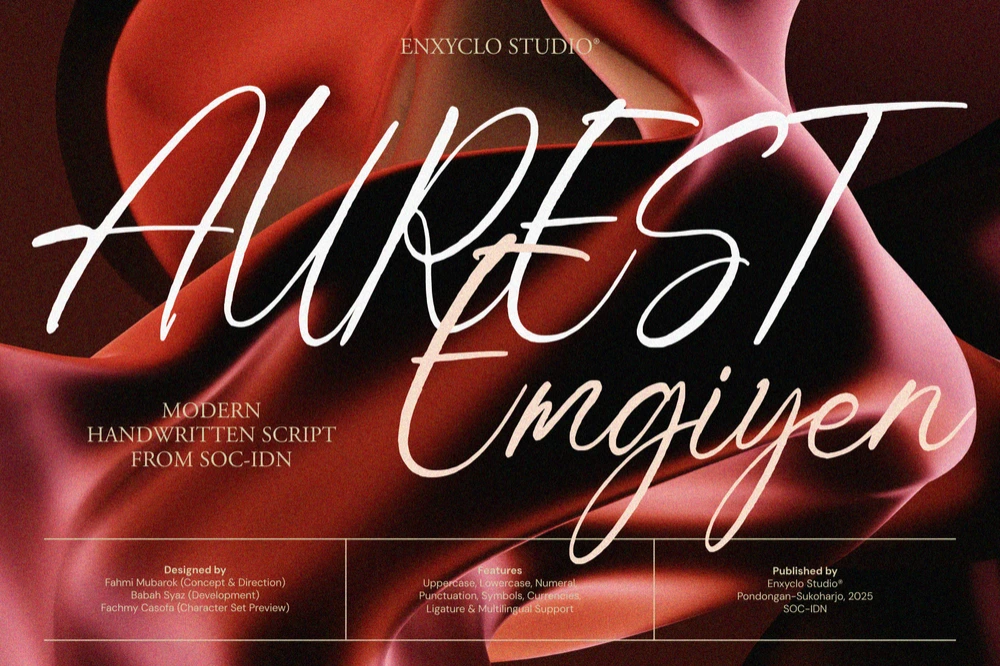
Aurest Emgiyen is a modern luxury script font designed with elegant curves, lavish detailing, and a premium handwritten flow. Crafted to elevate high-end visual identities, this font carries a rich, glamorous aesthetic perfect for brands that demand sophistication and refinement.
Its smooth script strokes and bold, confident presence make Aurest Emgiyen an ideal choice for fashion labels, luxury boutiques, beauty and skincare brands, cosmetics, and premium logo design. The font balances fancy elegance with a clean modern feel, making every word look exclusive, upscale, and irresistibly stylish. Whether used by a creative agency or a fashion-forward brand, Aurest Emgiyen brings a touch of glamour, class, and timeless beauty to any visual project.
FEATURE
- Uppercase letters
- Lowercase letters
- Punctuation marks
- Symbol set
- Currency symbols
- Ligature
- Multilingual support
PERFECT FOR
- Luxury logo design
- High-end boutique branding
- Beauty, skincare, and cosmetic packaging
- Premium social media visuals
- Elegant invitations and stationery
- Creative agency identity projects
- Upscale advertising and editorial layouts
- Product labels and signature marks
- Aesthetic posters and lifestyle branding
- Glamorous product photography overlays